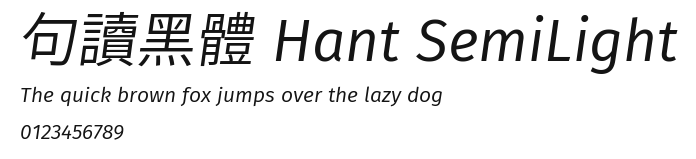
句讀黑體 Hant SemiLight Preview
• Font Name: 句讀黑體 Hant SemiLight
• Font ID: 句讀黑體 Hant SemiLight Italic
• Full Font Name: 句讀黑體 Hant SemiLight Italic
• PostScript Name: Judou-Sans-Hant-SemiLight-Italic
About 句讀黑體 Hant SemiLight.ttf
句讀黑體 Hant SemiLight.ttf is a modern, elegant sans-serif font designed for ultimate readability and visual harmony. Perfect for branding, headlines, web design, and print materials.